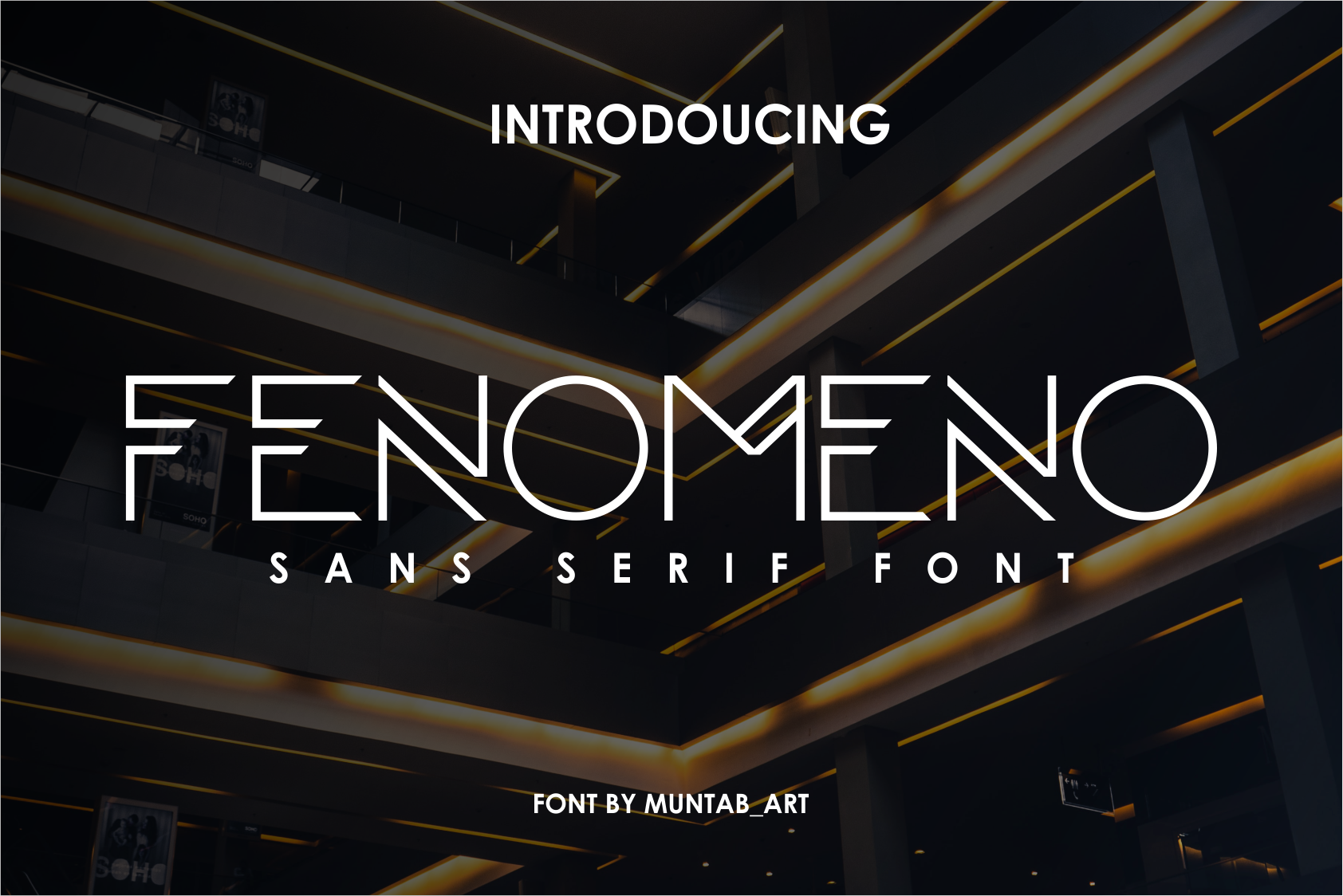
Fenomeno | Futuristic Font
Fenomeno fonts includes uppercase letters, numerals, a large range of punctuation. sans serif font with modern style. Created for poster, web design, branding, illustrations, badges and some other works.